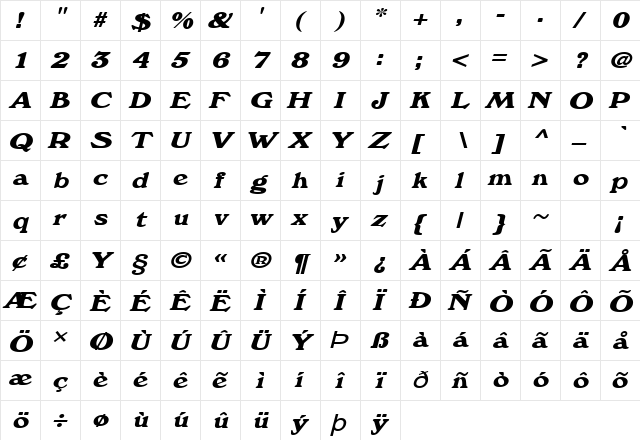
DictionaryExtended Italic
Design Context for DictionaryExtended Typeface
DictionaryExtended offers clean, dependable letterforms without strong stylistic allegiance, making it a practical choice for designers who need flexibility. Its italic angle brings a sense of urgency and motion to the letterforms.
Pro Tip: Use DictionaryExtended for emphasis, pull quotes, and subheadings where its slanted energy can add rhythm to the layout.